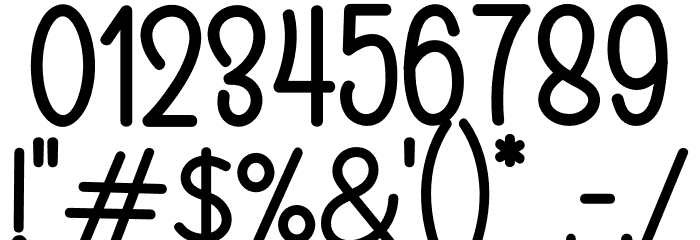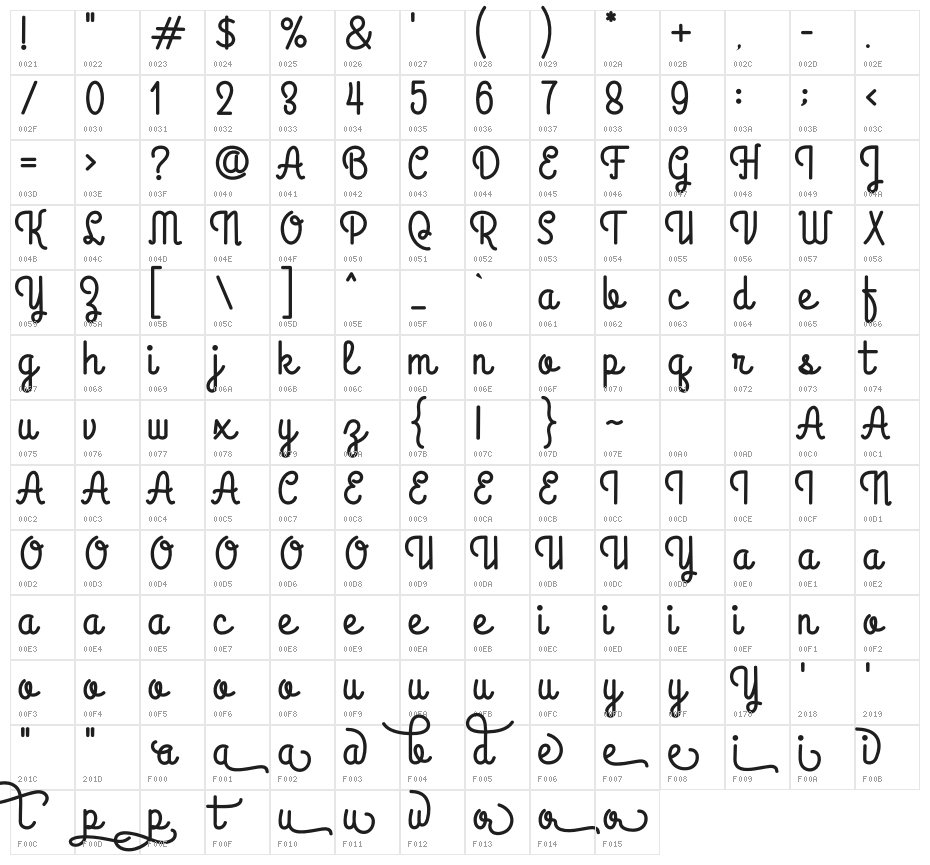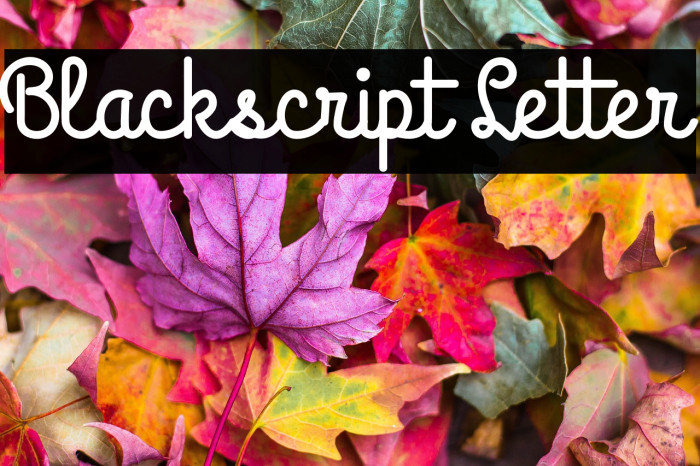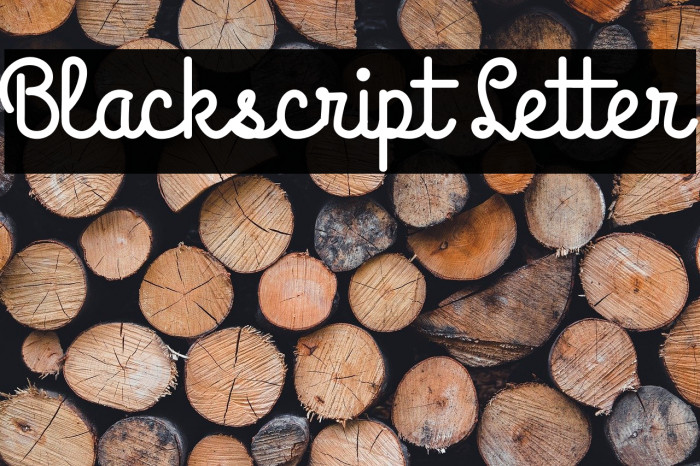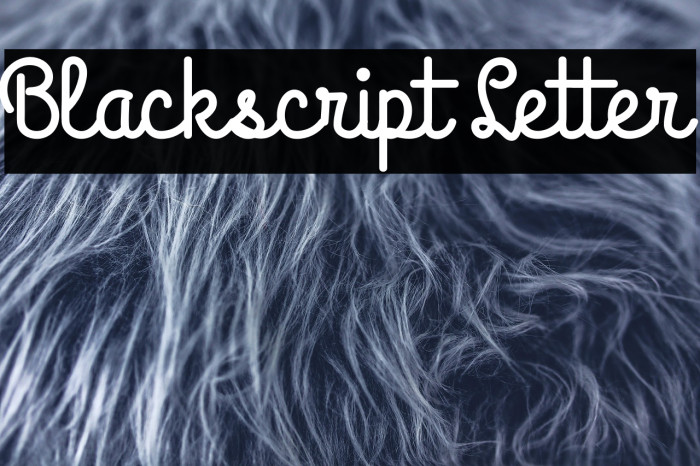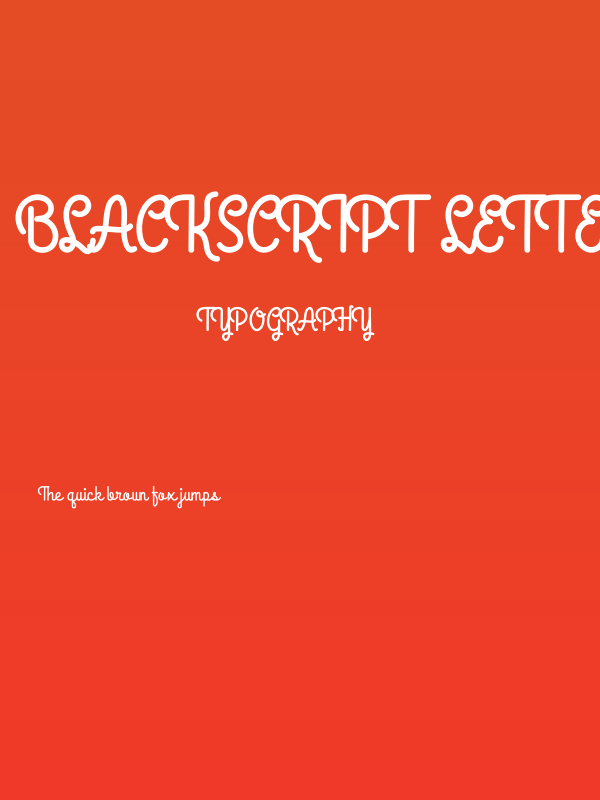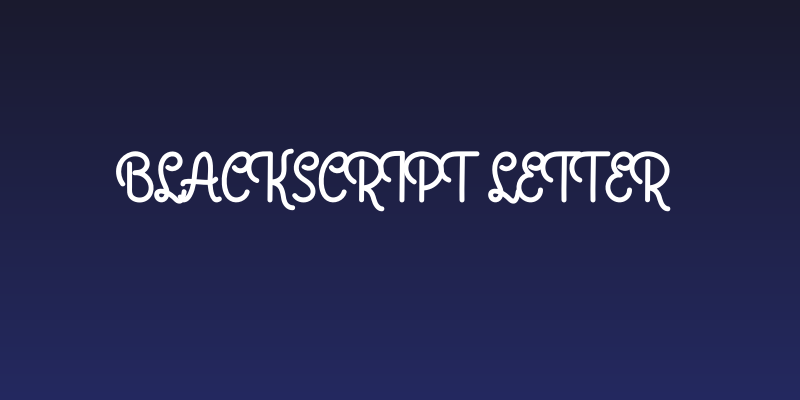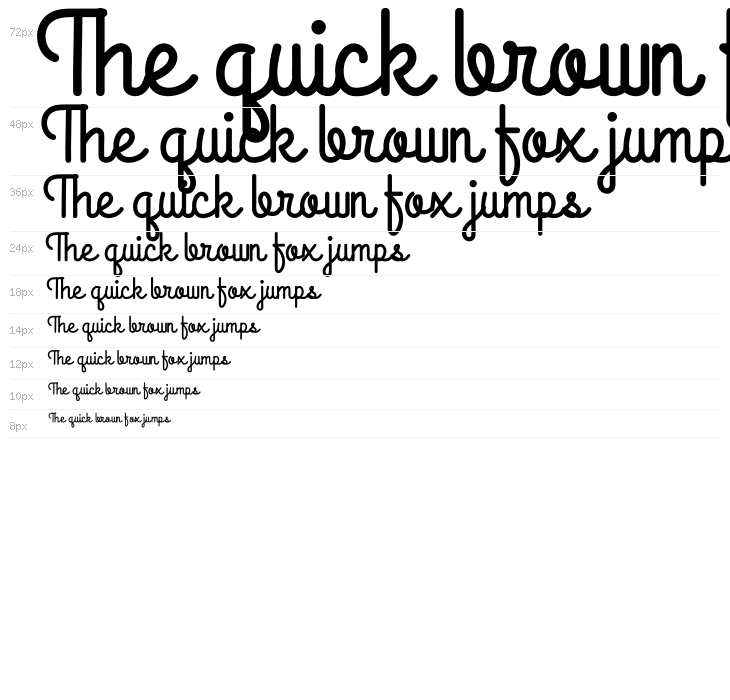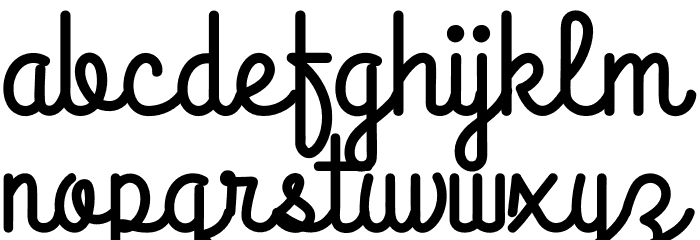
Blackscript Letter Font
Blackscript Letter Description
This font features a playful and flowing script style, characterized by its smooth, connected strokes and rounded edges. The uppercase letters maintain a consistent height, while the lowercase letters exhibit a charming looped design, adding a whimsical touch. The numerals are clear and legible, complementing the overall aesthetic. Special characters are well-integrated, maintaining the font's cohesive look. The font's design is both elegant and approachable, making it suitable for a variety of creative applications.
| Use Case | Logos, Invitations, Social Media Graphics |
| Proposed Projects | Ideal for greeting cards, invitations, branding, and social media graphics. |